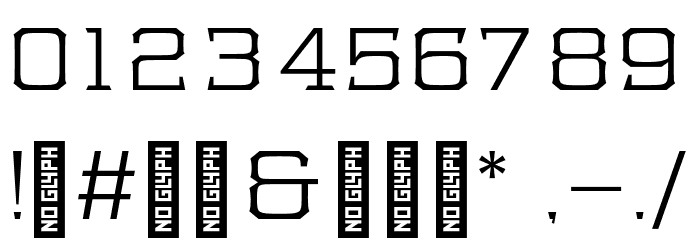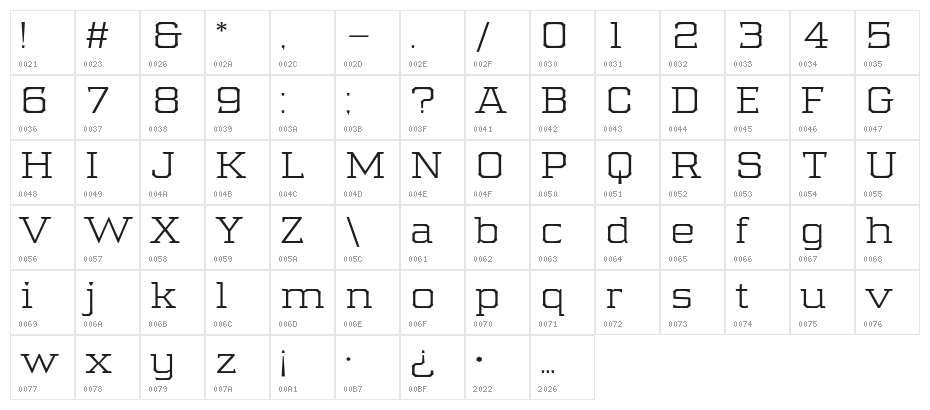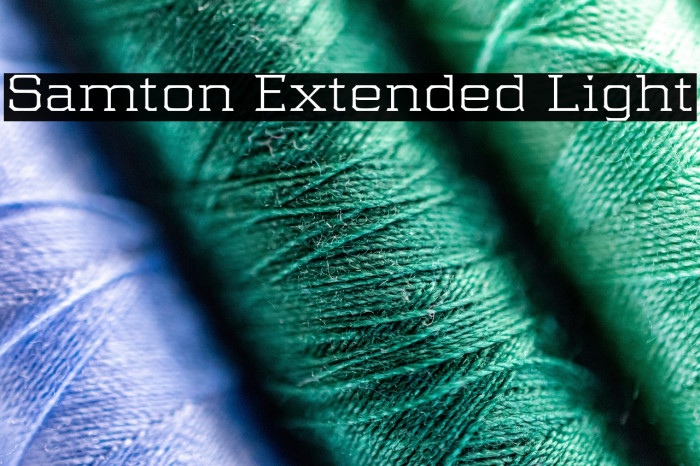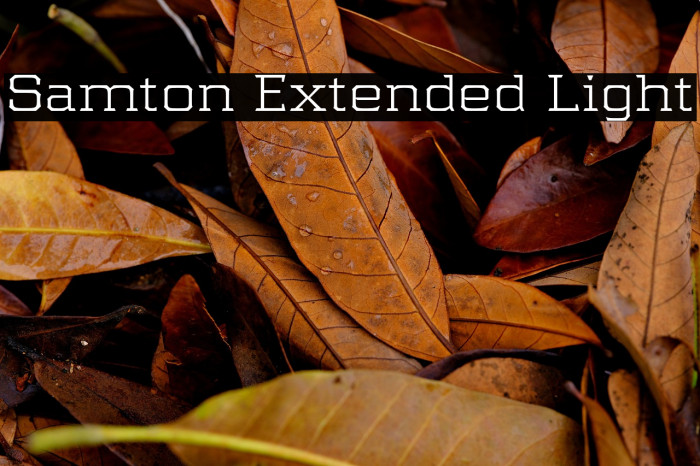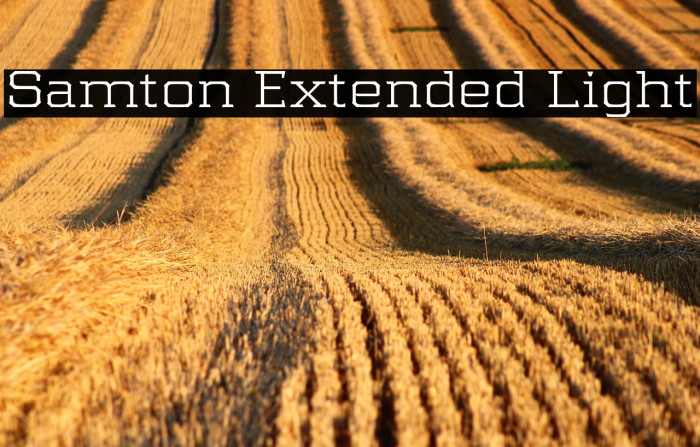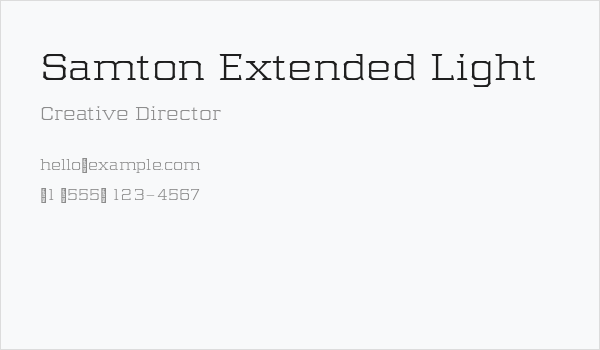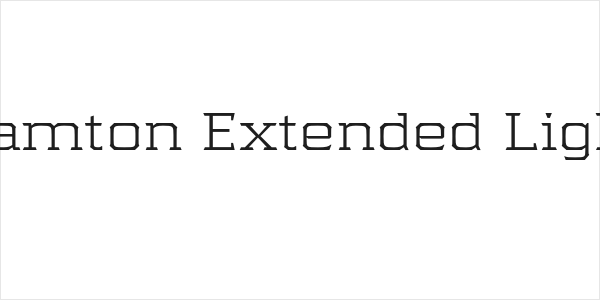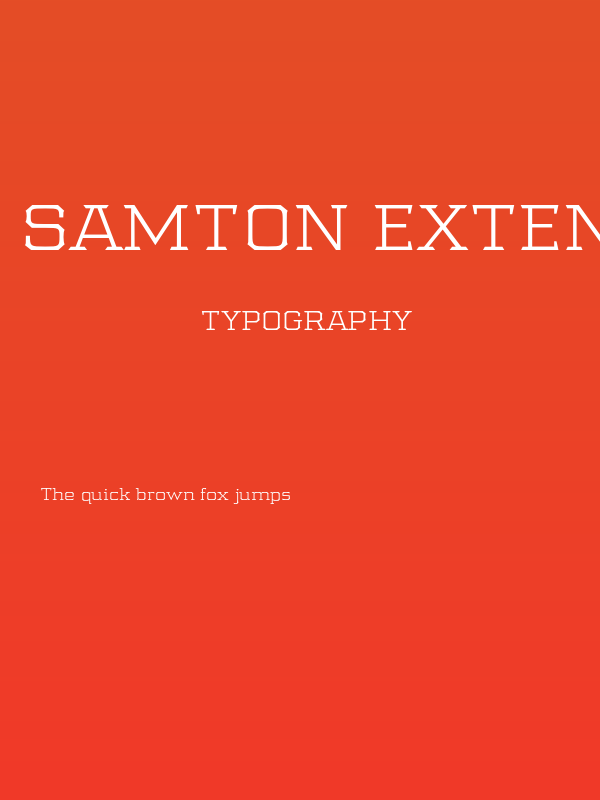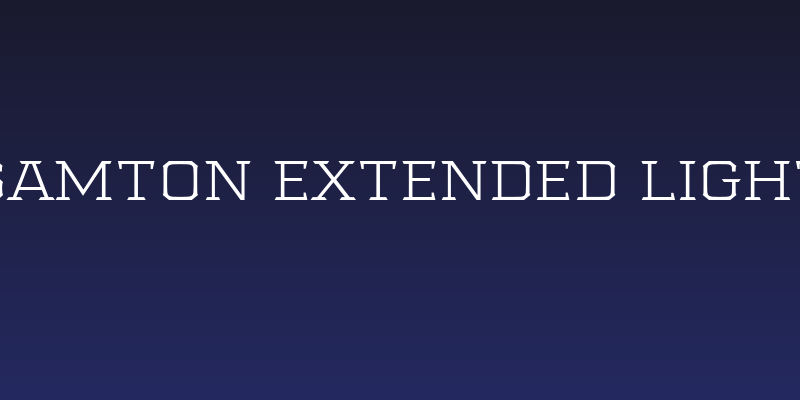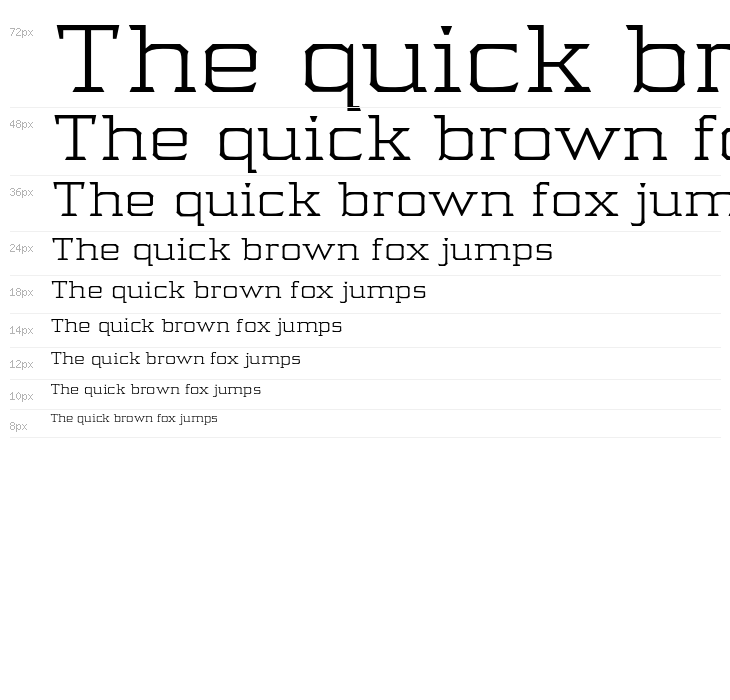
Samton Extended Light Font
Samton Extended Light Description
This font features a modern, geometric design with a monospaced structure. Each character is uniformly spaced, giving it a clean and organized appearance. The strokes are consistent in width, providing a low contrast throughout the typeface. The uppercase letters are bold and prominent, while the lowercase letters maintain a similar weight, ensuring readability and balance. The numerals are distinct and align well with the overall style, making them suitable for technical or digital applications. Special characters are limited, but the available ones integrate seamlessly with the rest of the font.